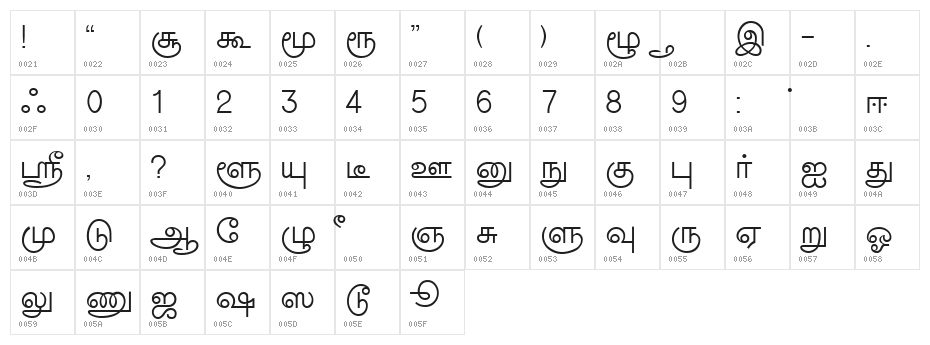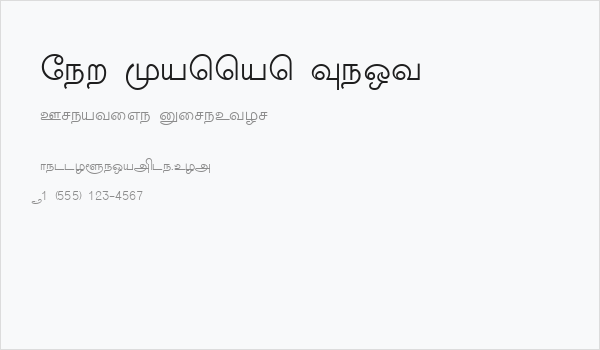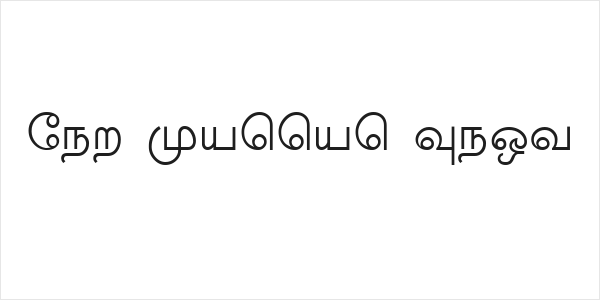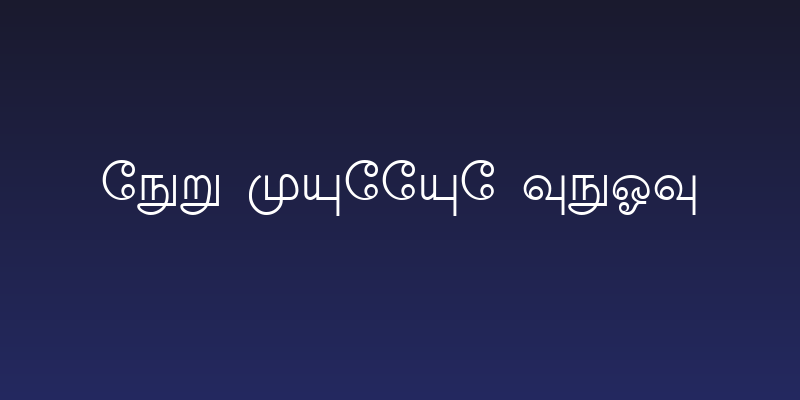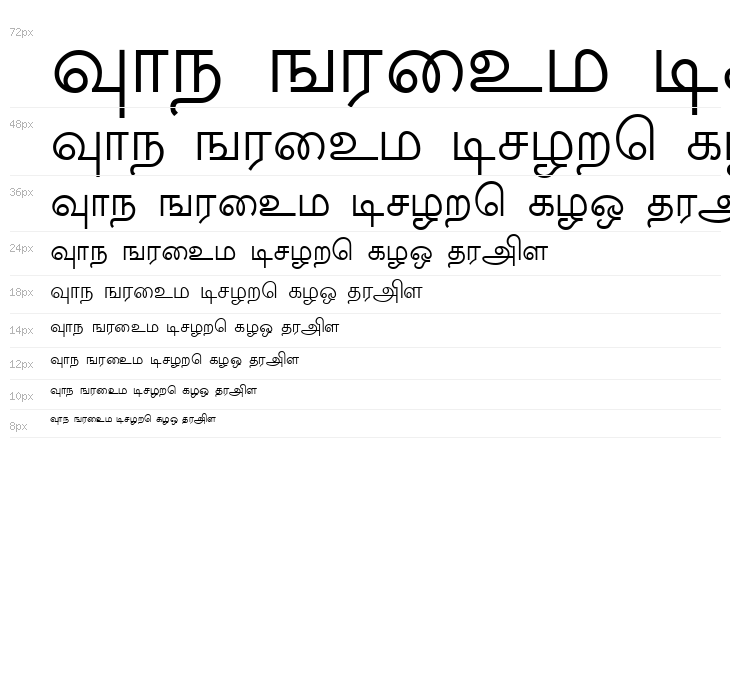
New Kannan Text Font
New Kannan Text Description
This font features a clean and modern design, characterized by its clear and legible Tamil script. The strokes are smooth and consistent, providing a harmonious appearance that is easy on the eyes. The numerals are straightforward and align well with the overall style, making it suitable for both digital and print media. The special characters are distinct and maintain the font's cohesive look. This font is versatile, offering a professional yet approachable aesthetic that can be used across various applications.
| Use Case | Body text, Digital content, Signage |
| Proposed Projects | Ideal for educational materials, digital content, signage, and branding projects requiring Tamil script. |